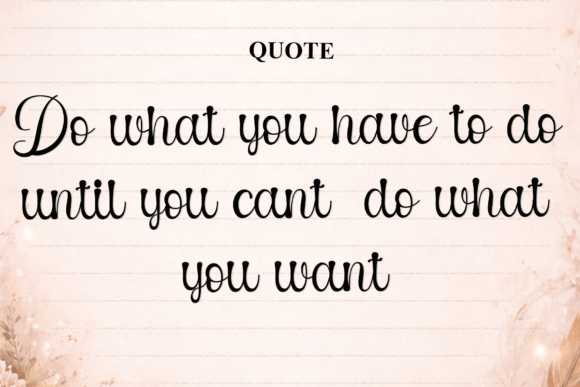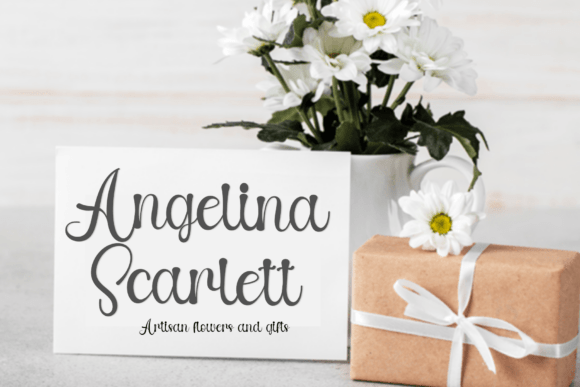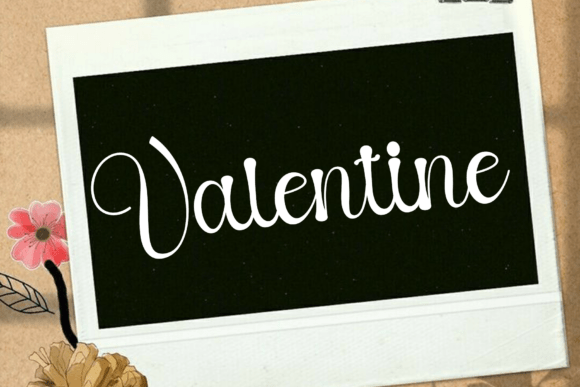
Introduction to Pipi Designer Font
Have you ever stumbled upon a design that makes you feel like you’re browsing through a quaint little shop on a lazy Sunday afternoon? The warm colors, the whimsical patterns, and the inviting typography all come together to create an atmosphere that’s hard to resist. This is exactly the kind of experience you can create with the Pipi Designer Font, a casual and creative font that exudes warmth and friendliness.
As a designer, you’re always on the lookout for the perfect design resource to elevate your projects. Whether you’re working on a personal project, creating invitations, or designing social media graphics, the Pipi Designer Font is a valuable addition to your toolkit. Its round, playful strokes create a relaxed and approachable feel that’s perfect for a wide range of creative projects.
Key Features of Pipi Designer Font
- Pipi Designer Font boasts a high level of detail and intricacy, making it an excellent choice for designers seeking a sophisticated look.
Honest Review: Pipi Designer Font
One of the standout features of the Pipi Designer Font is its transparent background, which makes it easy to use in creative projects where you need to layer text over images. The high quality of the font is also noticeable, with clean lines and a professional feel.
- High quality font with clean lines and professional feel
- No bold or italic versions available
- Limited character set may not be suitable for complex designs
Overall, I’m impressed with the Pipi Designer Font. While it may not be perfect, it’s a great option for designers who need a high-quality font on a budget. With a little creativity, you can work around its limitations and achieve great results.
Pipi Designer Font
Tips for Getting the Most Out of Pipi Designer Font
Here are a few tips to get the most out of Pipi Designer Font: experiment with different font sizes and styles, use the font with a transparent background to create depth and dimension, and combine the font with other design elements to create a unique visual effect.
Pipi Designer Font is perfect for designers working on creative projects such as: branding, advertising, packaging, and editorial design. The font’s unique style and high-quality design make it an ideal choice for designers looking to add a touch of sophistication to their work.